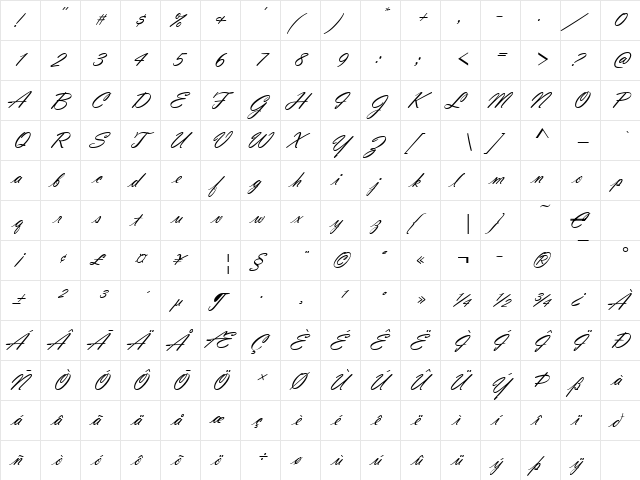
VladimirScr Becker Regular
Design Context for VladimirScr Becker Typeface
VladimirScr Becker is a composed and adaptable typeface that performs quietly and consistently across a wide range of design contexts.